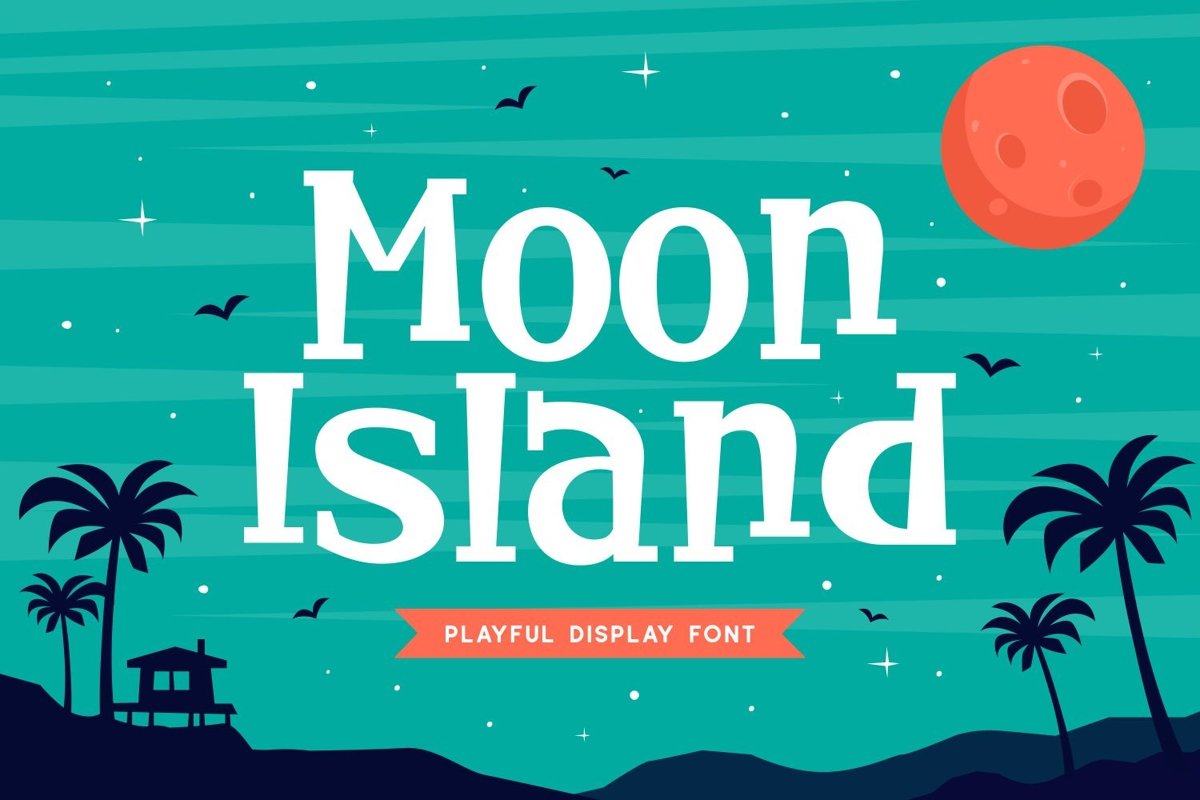
Moon Island is a unique serif display font come with playful themes. It matches applies in some designs such as the logotype, brand, packaging, quotes, poster, kids shirt, cover book, birthday invitation and more custom design. The features uppercase, lowercase, numeral, punctuation & symbol, multilingual support, PUA encoded (fully accessible without additional design software).
Moon Island